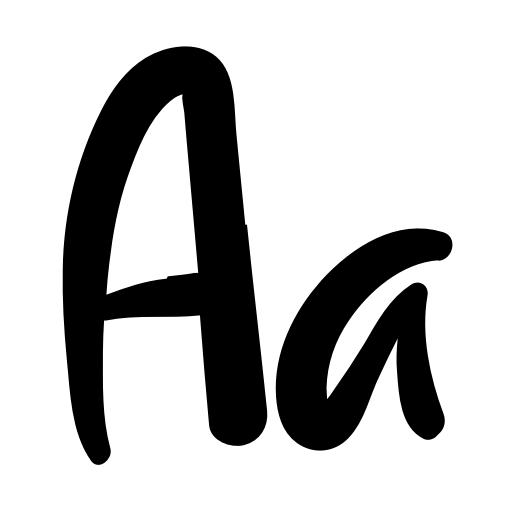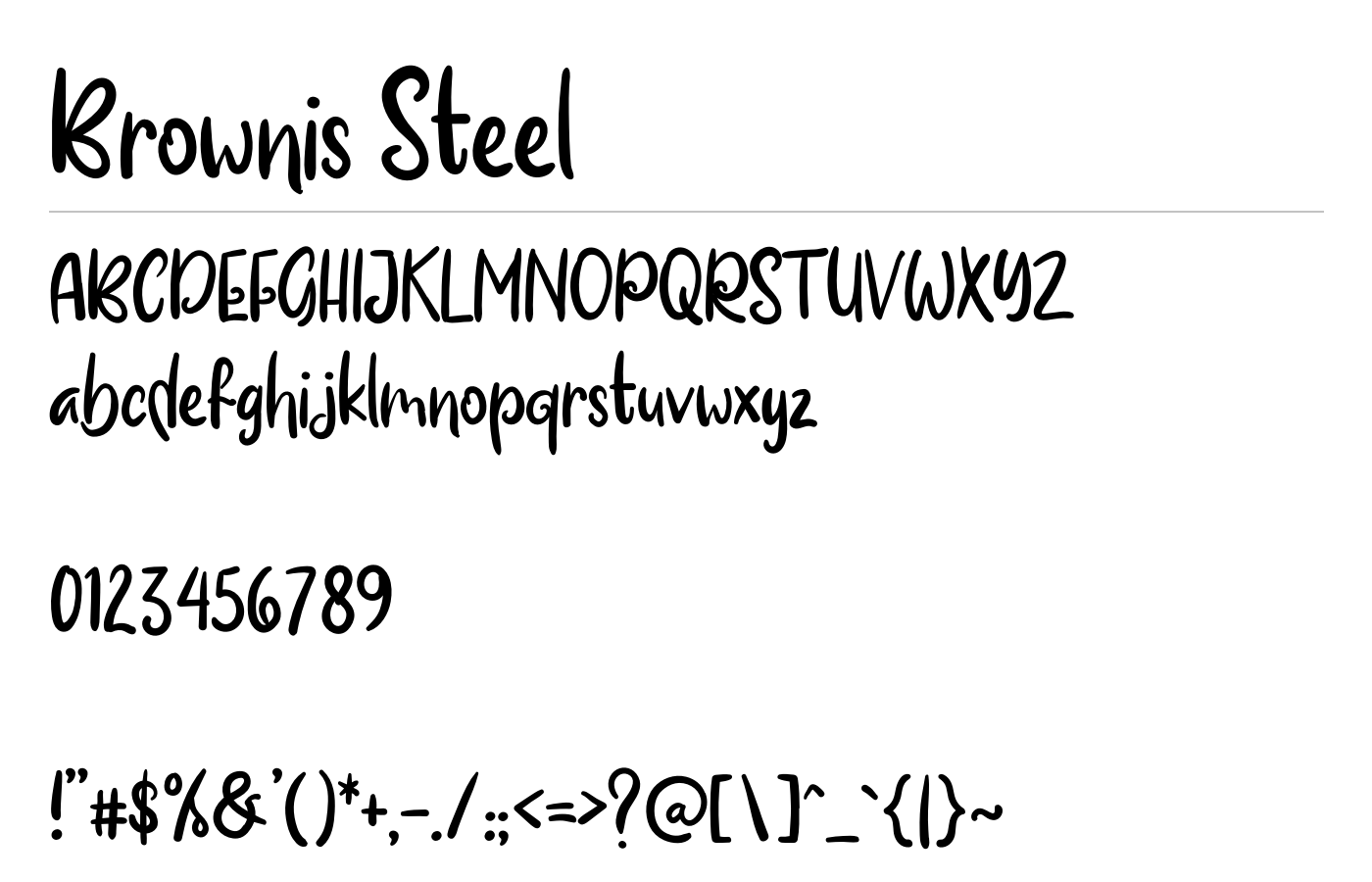
Brownis Steel is a casual, playful handwritten font with a tall, narrow structure and a lively, organic feel. Its smooth, rounded strokes and informal style make it perfect for friendly, approachable branding, children’s materials, and creative projects that need a personal touch. This font works well in headlines, invitations, and packaging where a warm, handcrafted vibe is desired.
Brownis Steel Font
About Brownis Steel Font